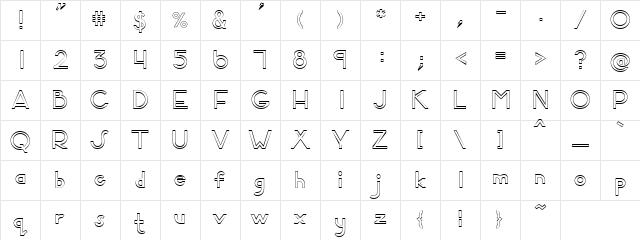
PC Borders Regular
Design Context for PC Borders
PC Borders is a composed and adaptable typeface that performs quietly and consistently across a wide range of design contexts.
Pro Tip: Use PC Borders in both headline and body roles to test its range before committing to a single application.